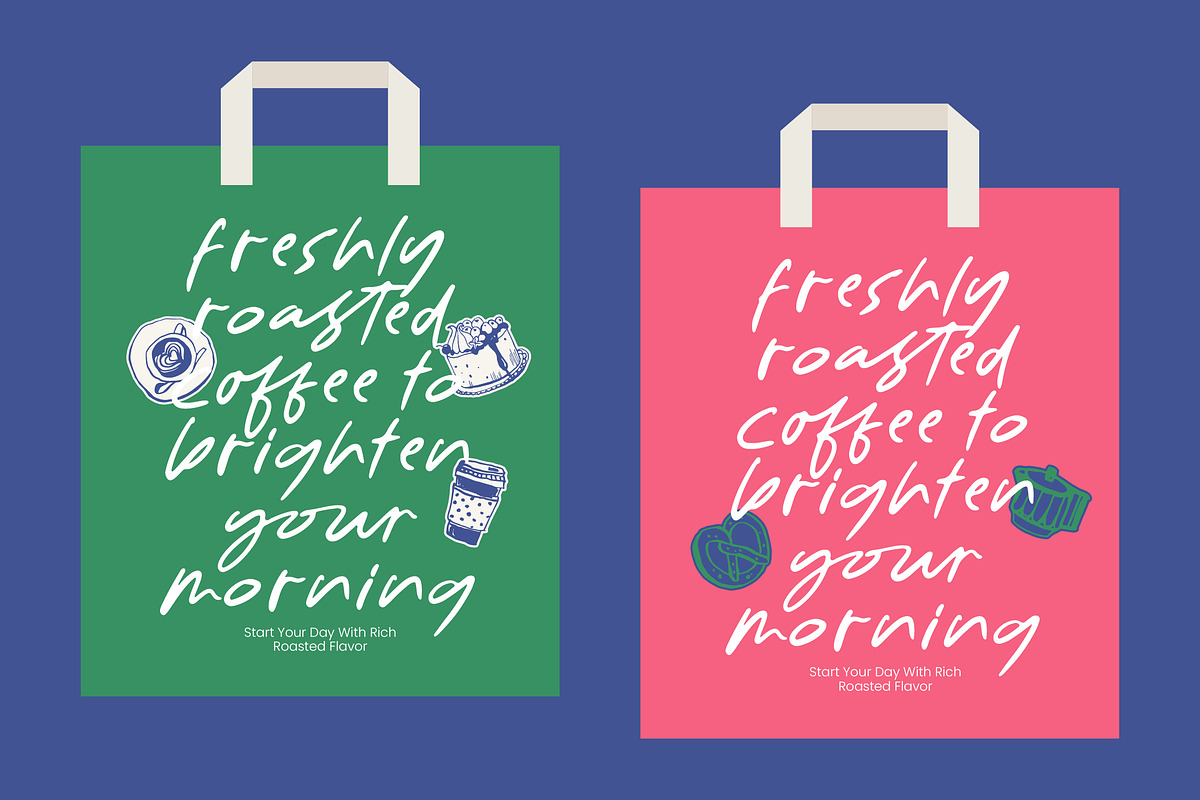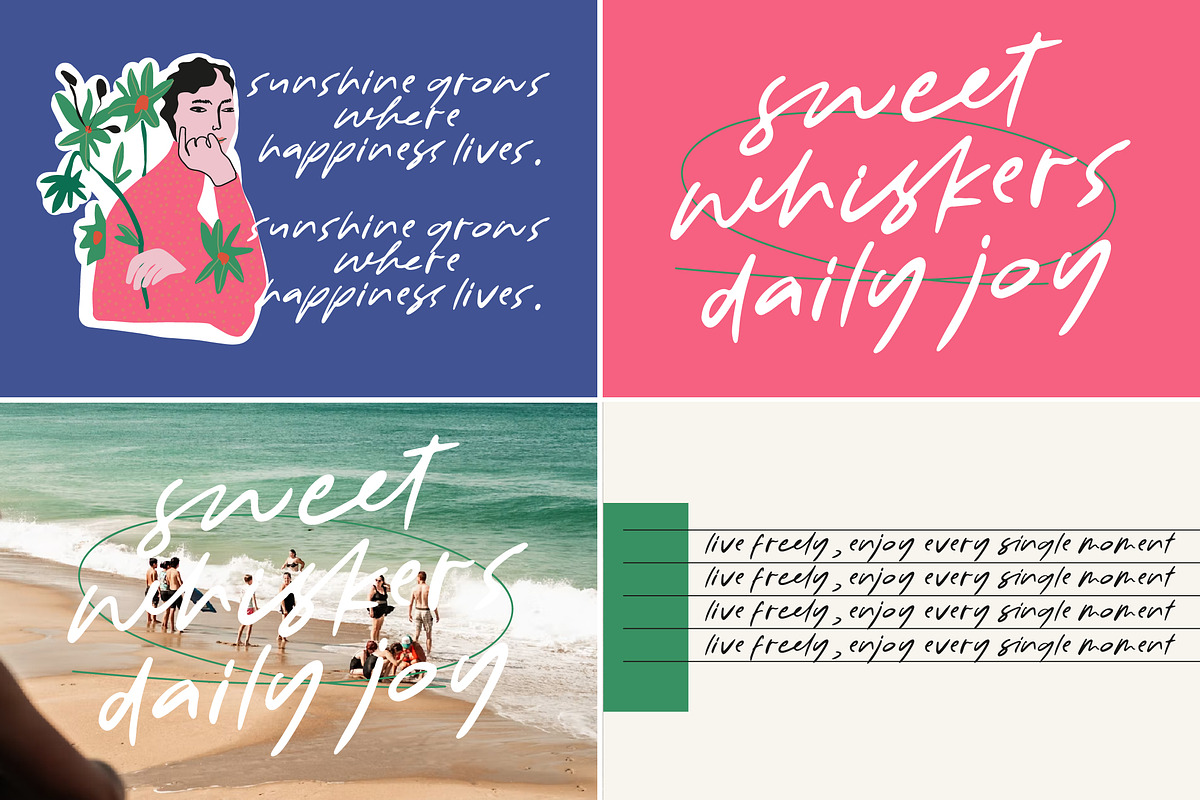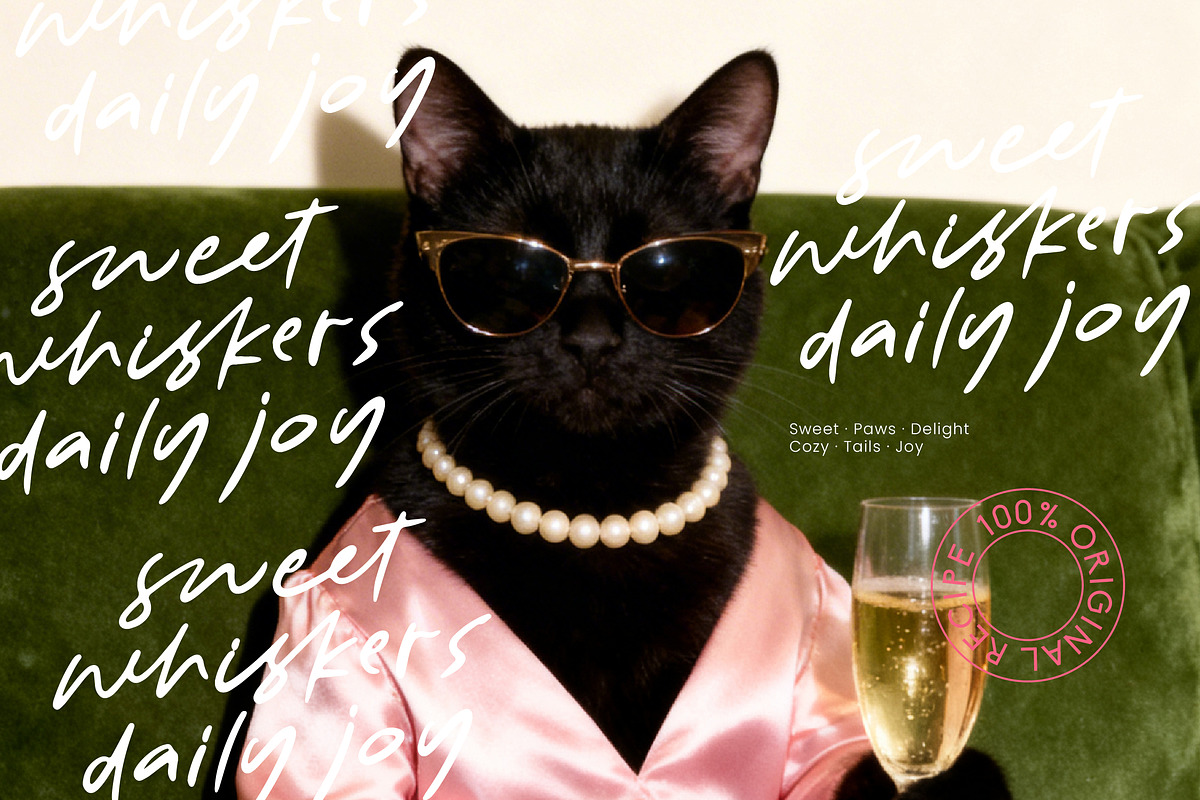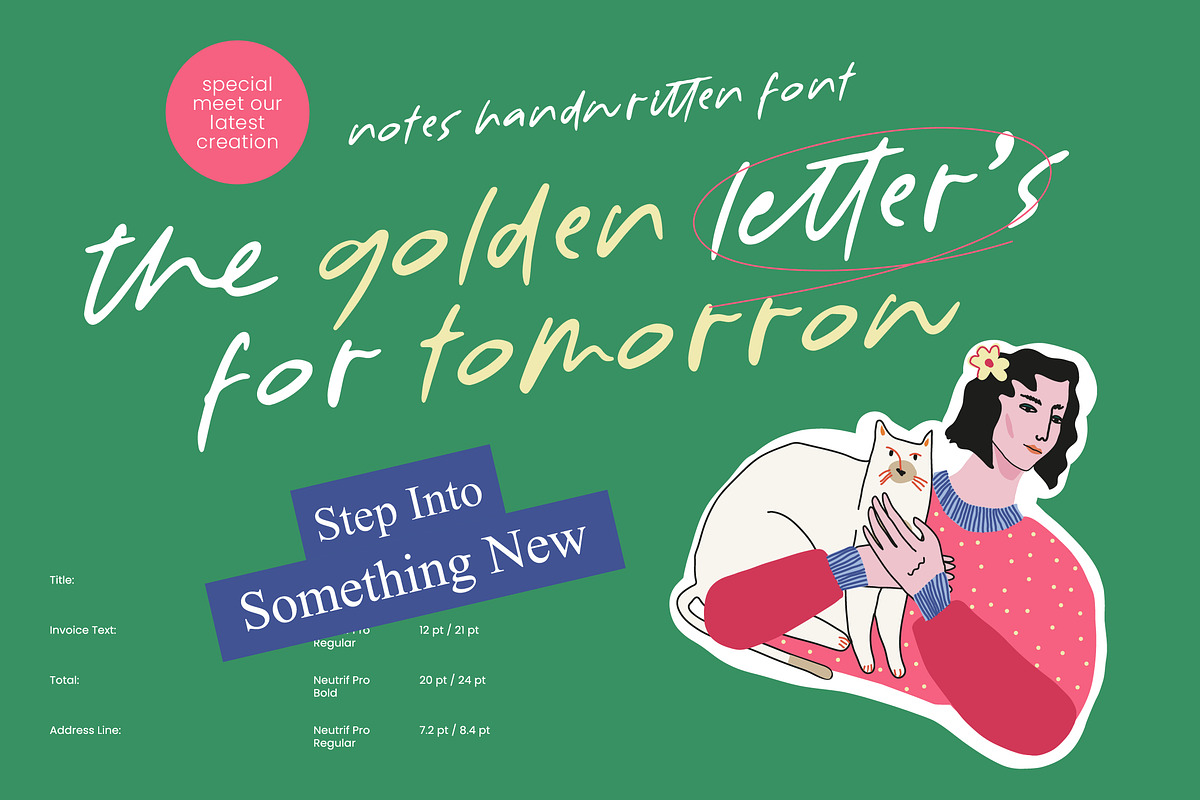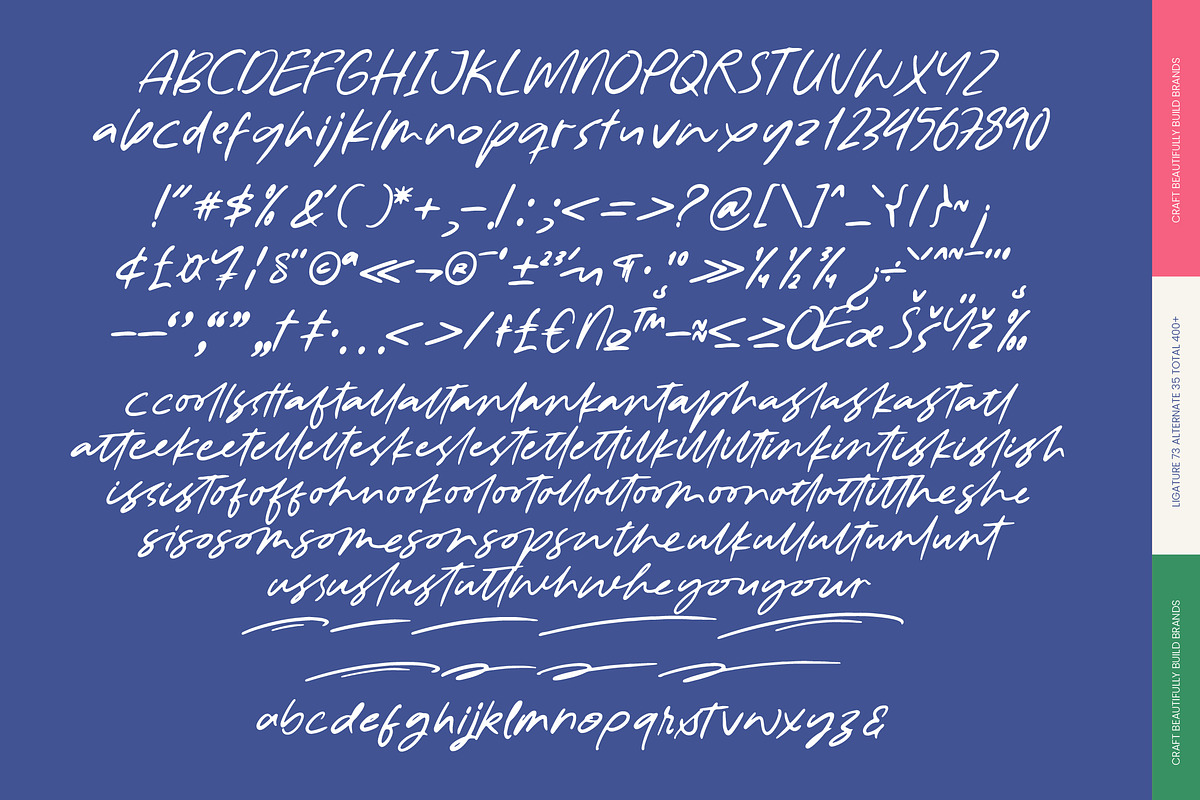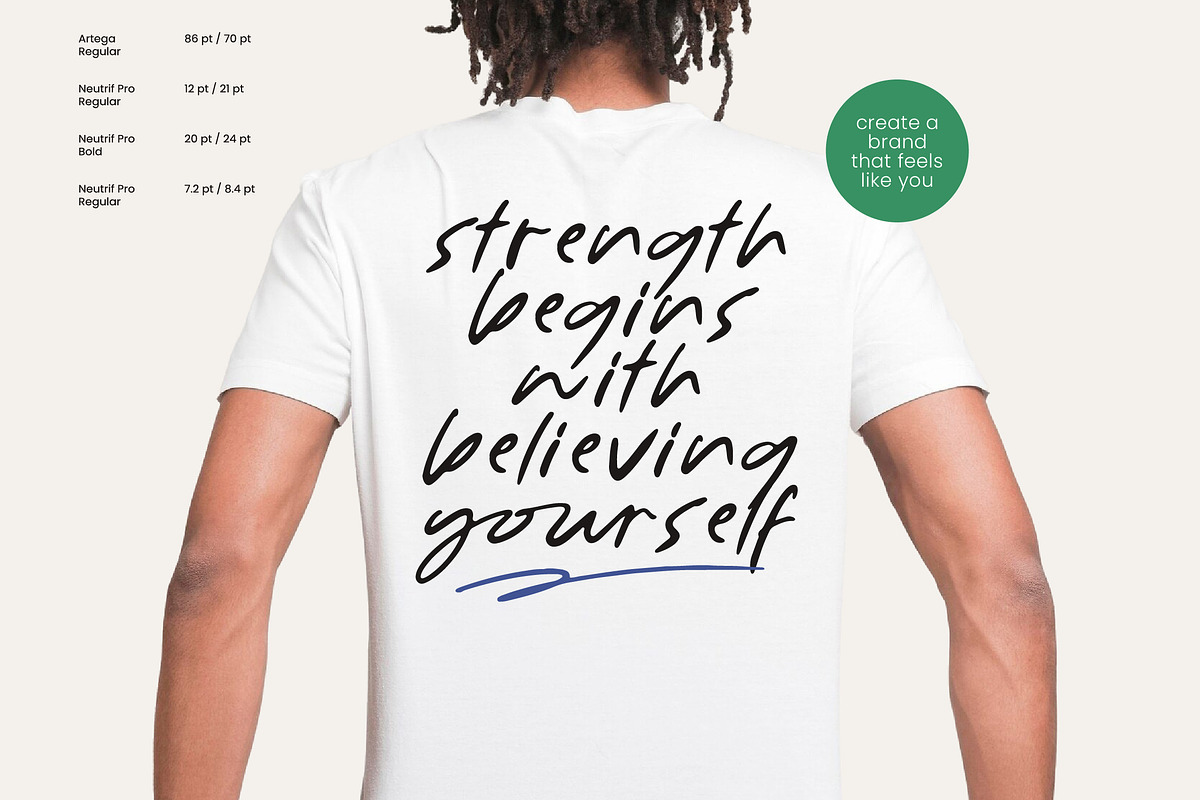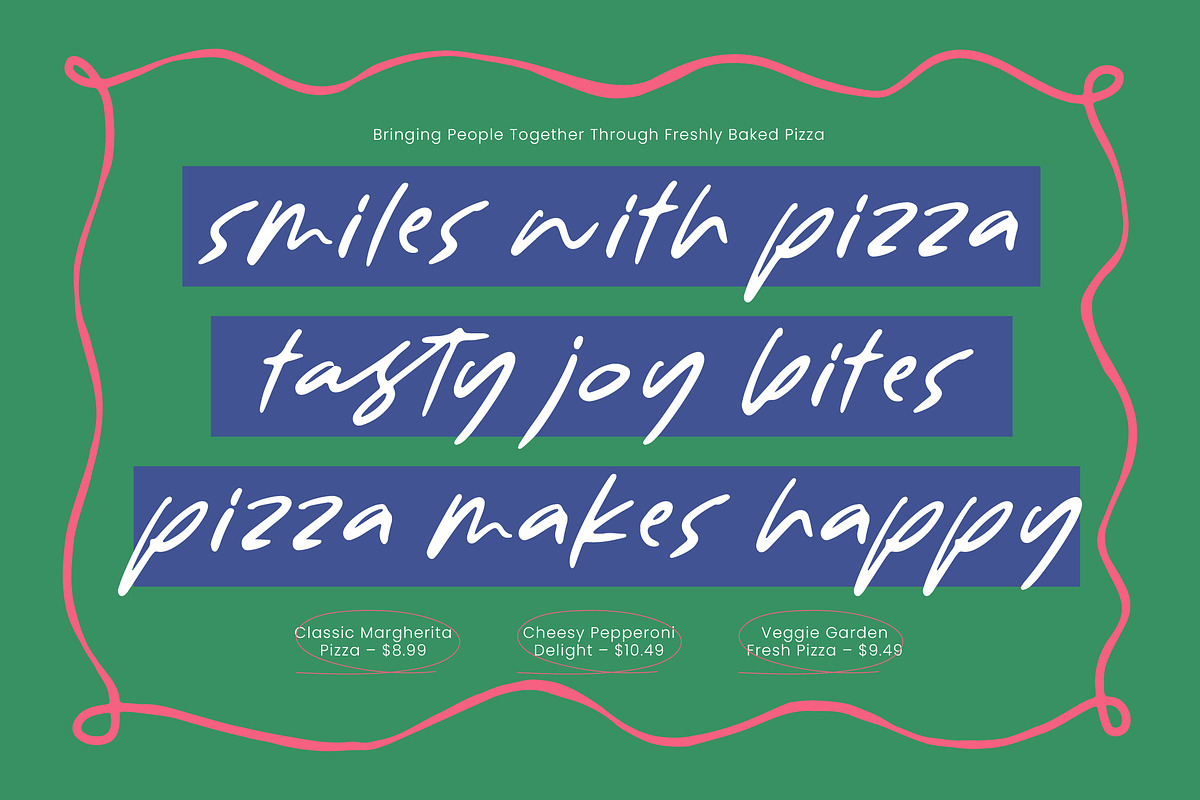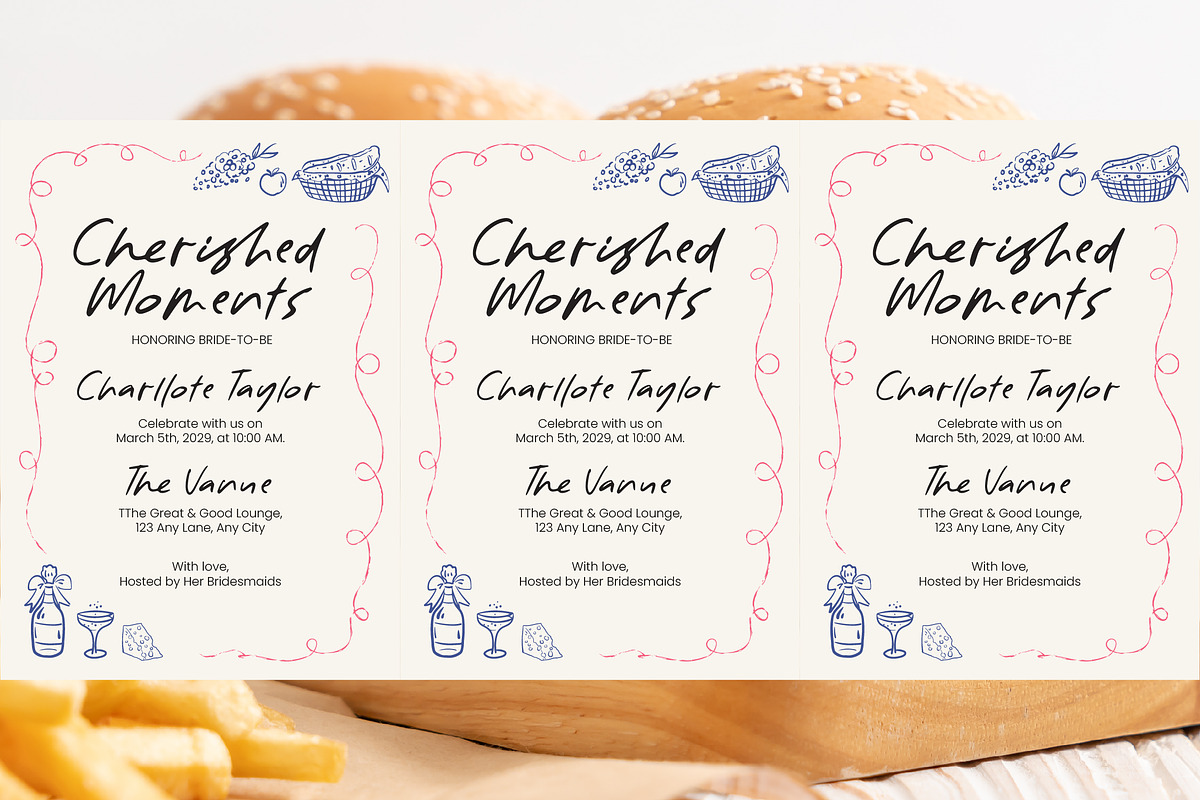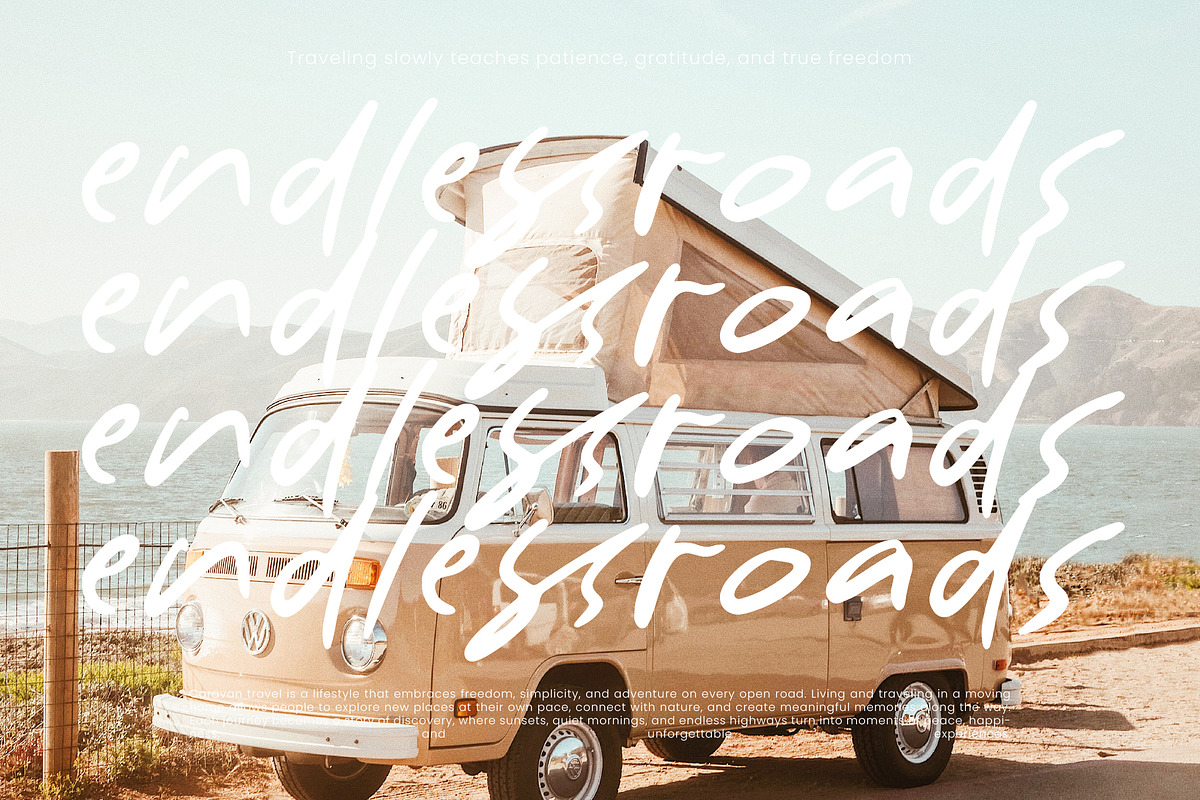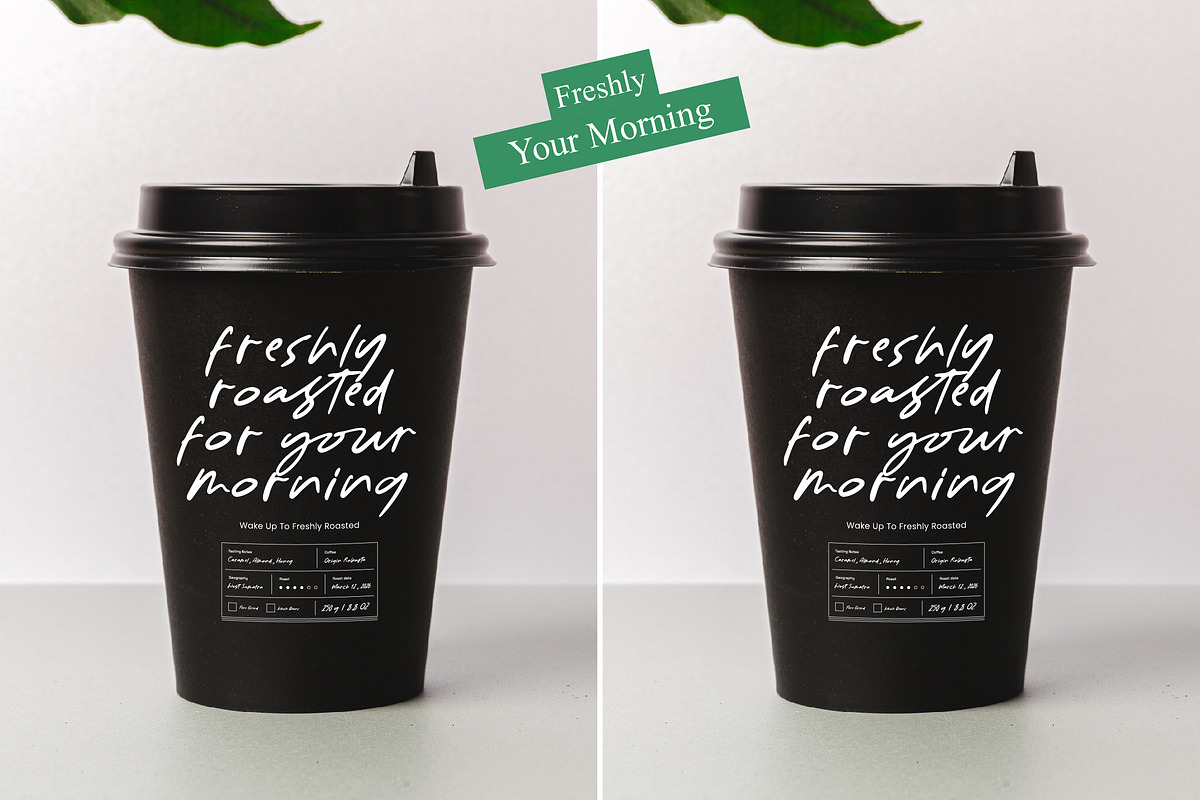
Golden Tomorrow Notes Handwritten
Golden Tomorrow - Notes Handwritten Font
Elevate your creative vision with the organic charm of Golden Tomorrow - Notes Handwritten Font, a typeface designed to bring an authentic, personal touch to every design. This modern script offers a fluid, natural rhythm that mimics real ink on paper, making it an essential tool for designers seeking a contemporary yet approachable aesthetic. By bridging the gap between digital precision and handcrafted warmth, Golden Tomorrow - Notes Handwritten Font ensures your message resonates with a genuine, human feel.
Expand your global reach effortlessly with a typeface built for the modern world. With its extensive multilingual support, Golden Tomorrow - Notes Handwritten Font adapts seamlessly across global markets, making it incredibly versatile for international projects. Whether you are crafting content for a local audience or a worldwide campaign, the comprehensive character set of Golden Tomorrow - Notes Handwritten Font maintains visual consistency and typographic excellence across diverse languages and regions.
Master the art of lifestyle branding and digital storytelling with a font that excels in high-impact environments. This versatile typeface is the ideal application for social media graphics, editorial layouts, boutique packaging, and custom stationery. Golden Tomorrow - Notes Handwritten Font is perfect for brands that want to convey informal elegance and creative authenticity, providing a distinct personality that captures attention in an overcrowded marketplace.
Transform ordinary layouts into extraordinary visual stories using this professional-grade script. The hand-drawn quality of Golden Tomorrow - Notes Handwritten Font provides a unique competitive edge, offering exceptional legibility without sacrificing its artistic soul. For professionals seeking a versatile design asset that blends commercial viability with artistic expression, Golden Tomorrow - Notes Handwritten Font stands as the ultimate choice for future-proof design solutions.